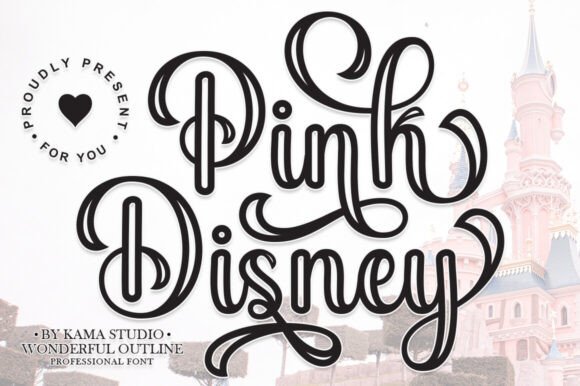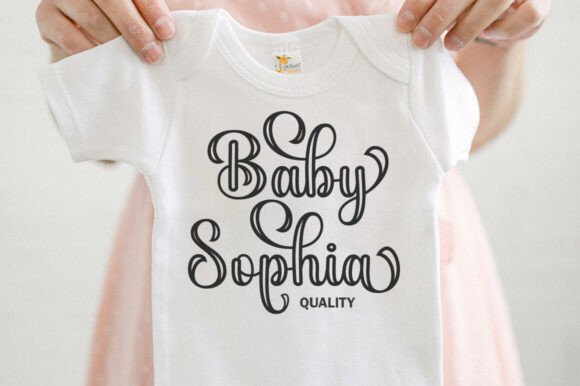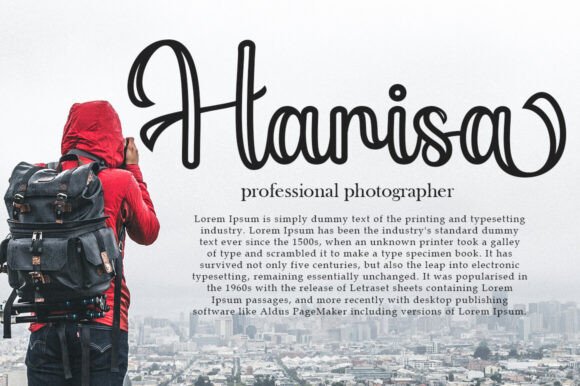
Pink Disney Font
Pink Disney Outline feels so charming and elegant. This stunning script font is a stylish homage to classic calligraphy. It can be used for a variety of purposes, such as logos, product packaging, wedding invitations, branding, headlines, signage, labels, signatures, book covers, posters, quotes, and more.